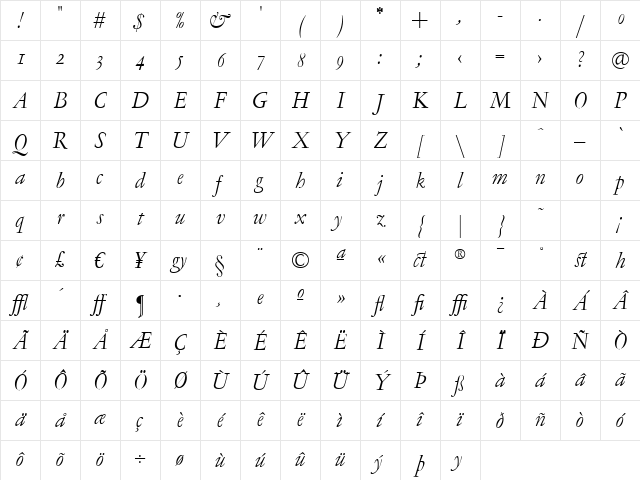
Complete LTC Garamont Display Italic OSF glyph index. Displaying only characters natively supported by LTC Garamont Display Italic OSF font.
LTC Garamont Display Italic OSF is built around its visual character rather than neutral utility - its distinctive forms are designed to make an impression at display sizes. The slanted form adds forward momentum and visual energy.
Suited to editorial headers, event branding, and any context where the font itself is part of the message.
Font Pairing: Pair with a clean neutral sans-serif for body copy to let LTC Garamont Display Italic OSF's character lead without overwhelming the composition.
Pro Tip: Use LTC Garamont Display Italic OSF exclusively at display sizes - it was designed to be seen, not read at length. Let a neutral companion handle body copy.